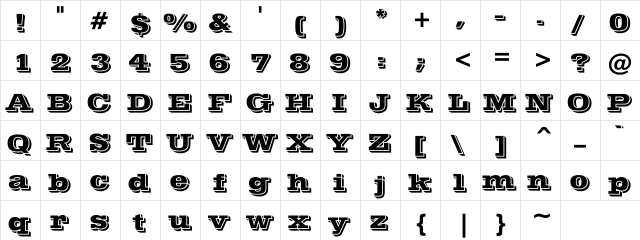
Southern Bold Bold
Design Context for Southern Bold Typeface
Southern Bold is a composed and adaptable typeface that performs quietly and consistently across a wide range of design contexts. The heavy weight commands attention and anchors typographic hierarchies.
Pro Tip: Pair Southern Bold with a font of contrasting weight or personality to build a more expressive typographic hierarchy.